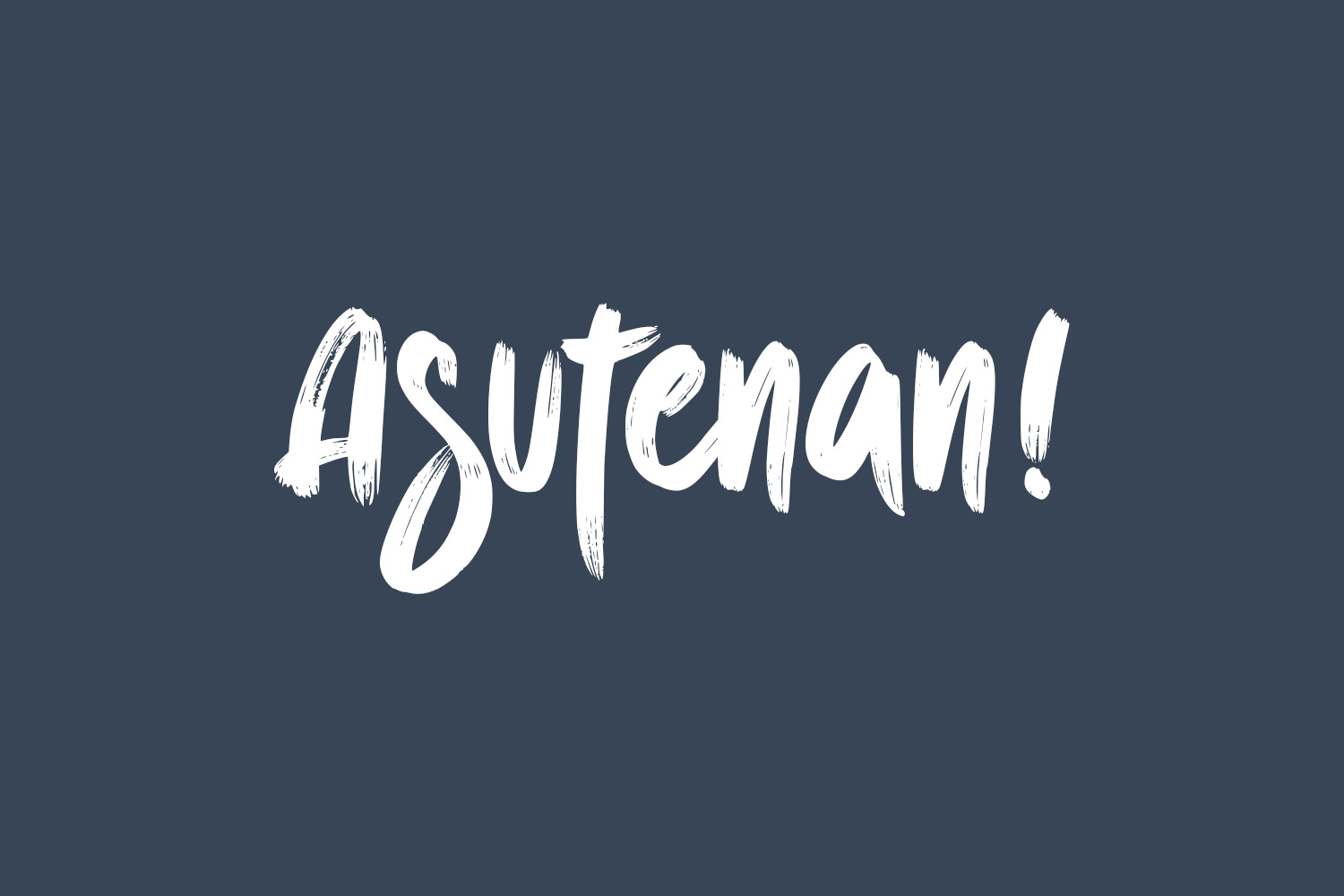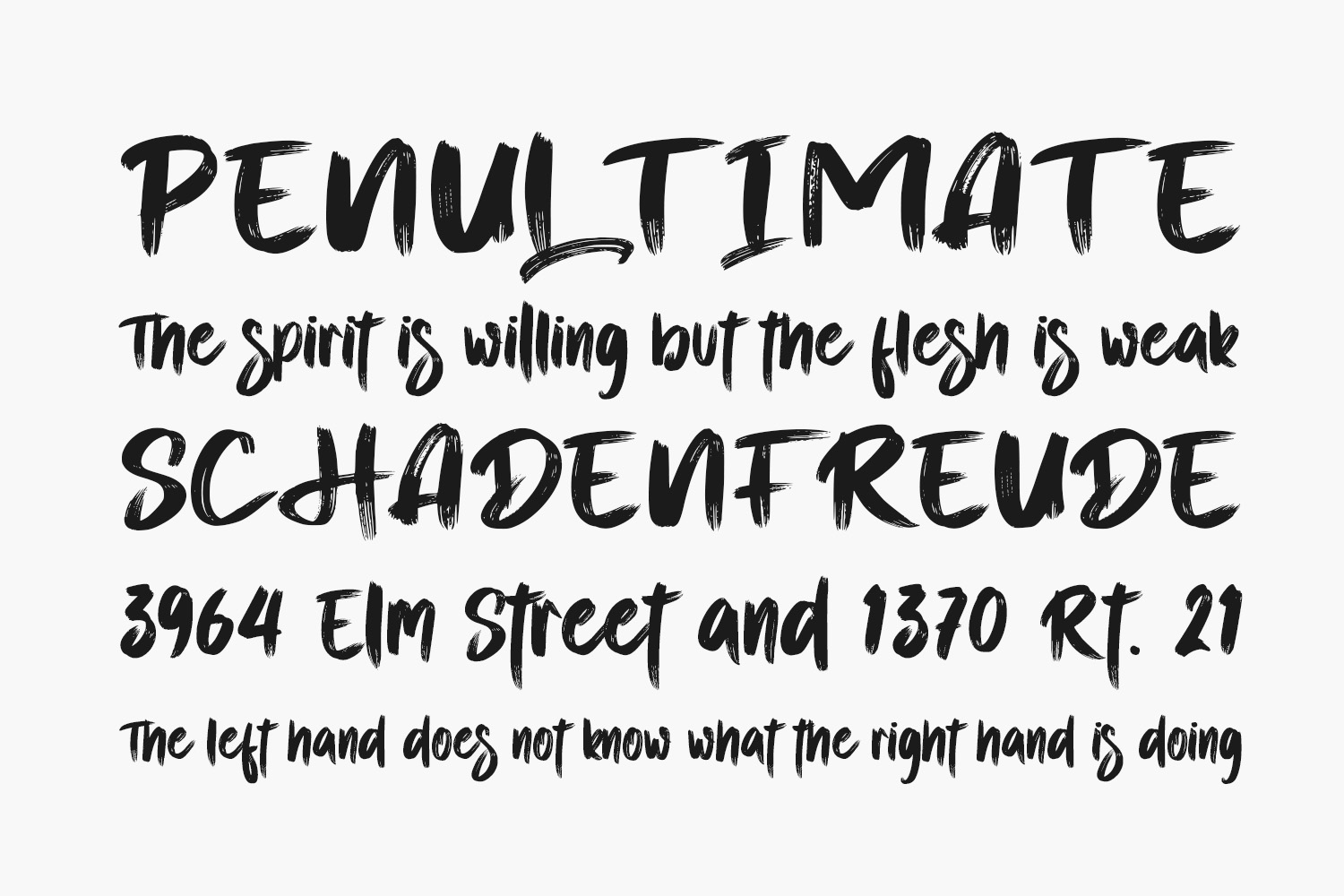
Introducing Asutenan! Free Font is a robust and distinctive handwritten font that exudes a one-of-a-kind charm. With its natural and elegant cursive style, this font is not only legible but also versatile, making it suitable for an array of designs. Whether it’s headlines, titles, logos, branding, posters, invitations, books, or any other creative project, Asutenan adds a unique touch of sophistication to your typography. Elevate your designs with the captivating allure of this handcrafted font. Asutenan! Free Font is free for personal use only. Please purchase the full version for commercial use.
Designed by Letterara